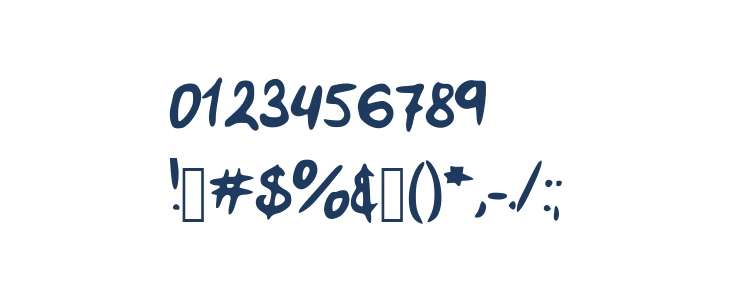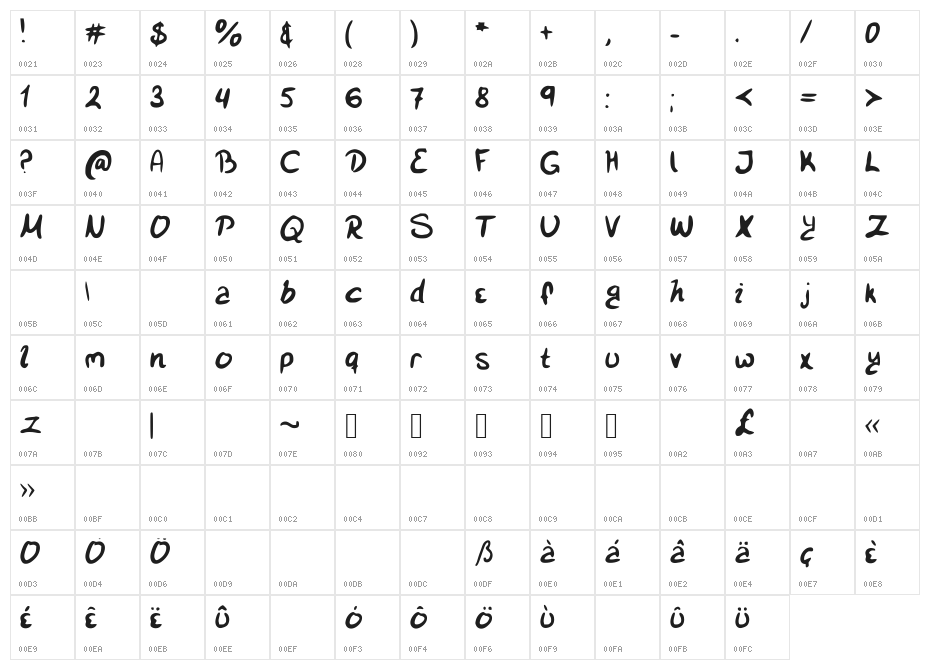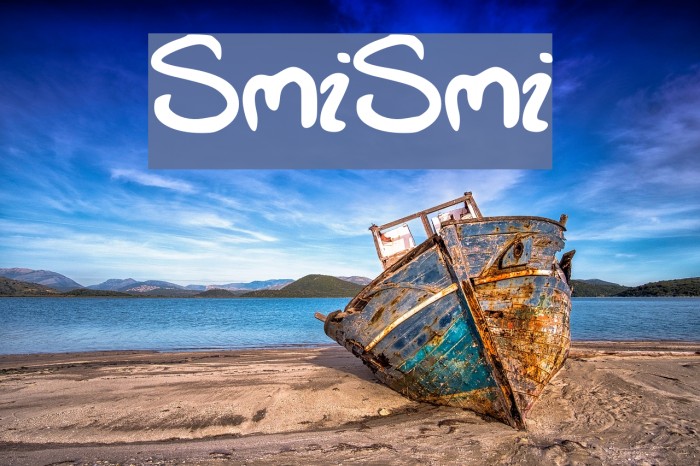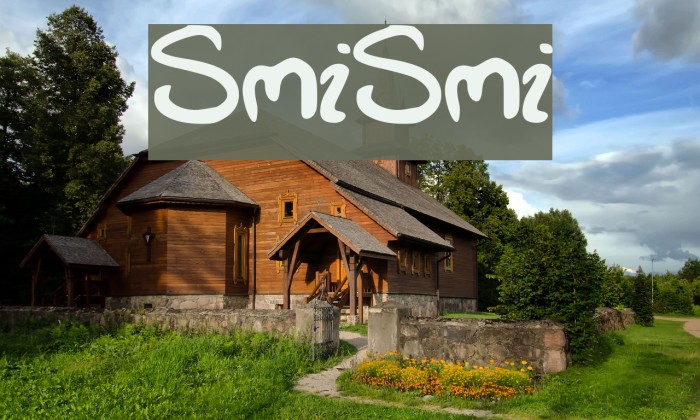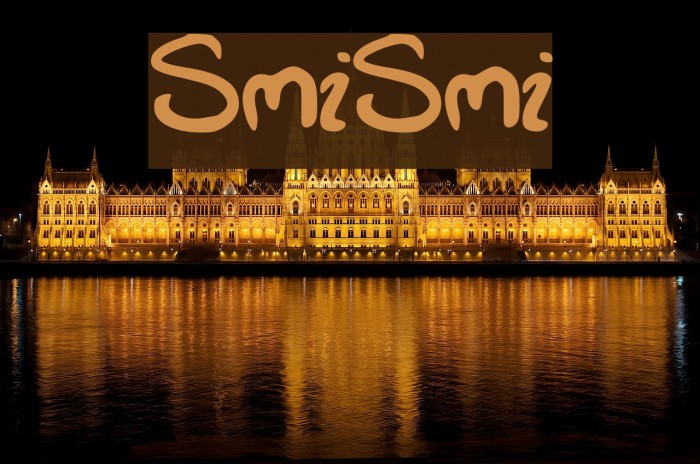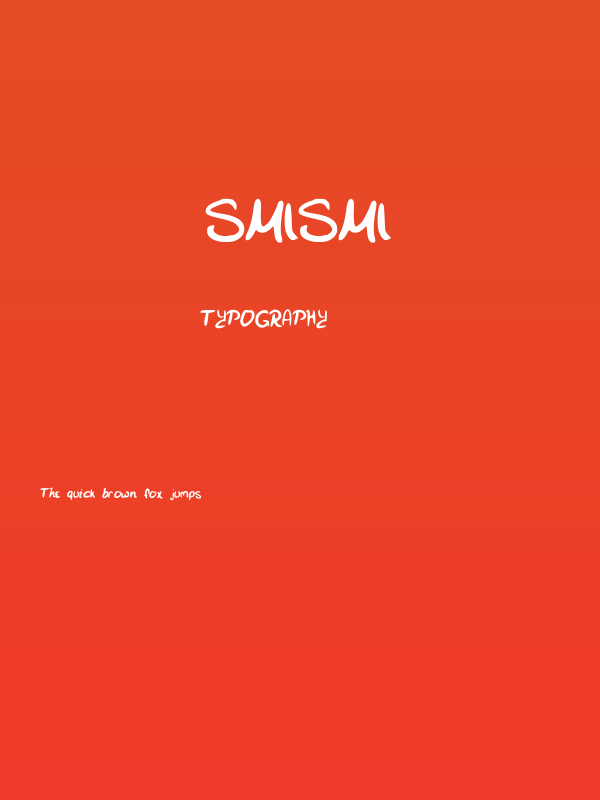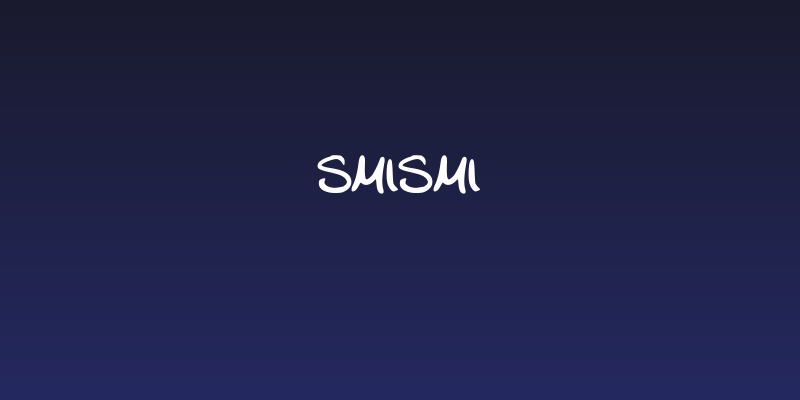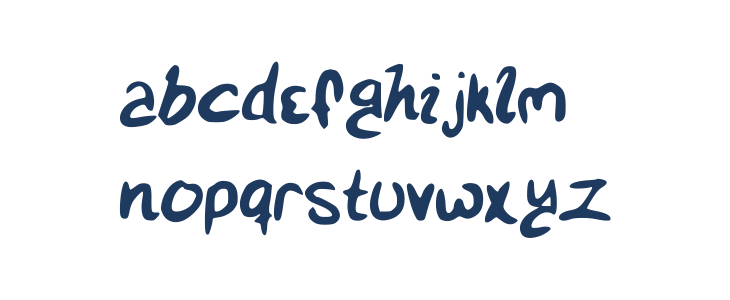
SmiSmi Font
SmiSmi Description
This font features a playful and bold handwritten style, characterized by its fluid and dynamic strokes. The letters have a slightly irregular shape, giving them a lively and organic feel. The uppercase letters are robust and prominent, while the lowercase letters maintain a consistent flow, enhancing readability. The numerals are well-integrated with the overall style, maintaining the same playful aesthetic. Special characters are creatively designed, adding to the font's unique personality. This font's boldness and distinctive style make it ideal for projects that require a touch of creativity and informality.
| Overall Style | Playful, Creative |
| Proposed Projects | Ideal for children's books, creative posters, casual branding, and playful invitations. |